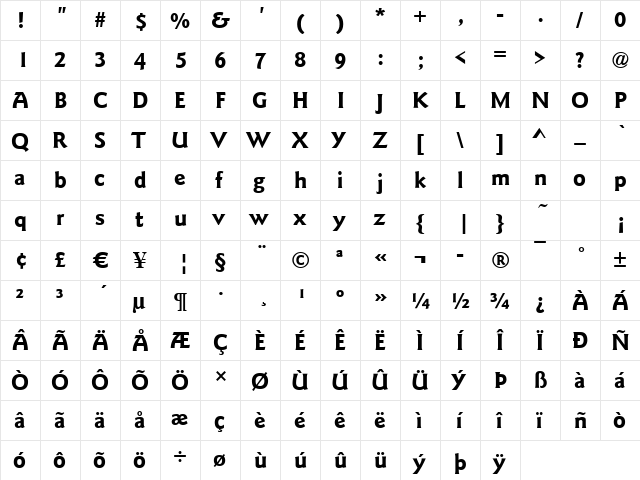
Goudy-Elegant Bold Font Preview
Goudy-Elegant Bold
Design Context for Goudy-Elegant Typeface
Goudy-Elegant is a composed and adaptable typeface that performs quietly and consistently across a wide range of design contexts. Its bold stroke weight gives it real presence on the page.